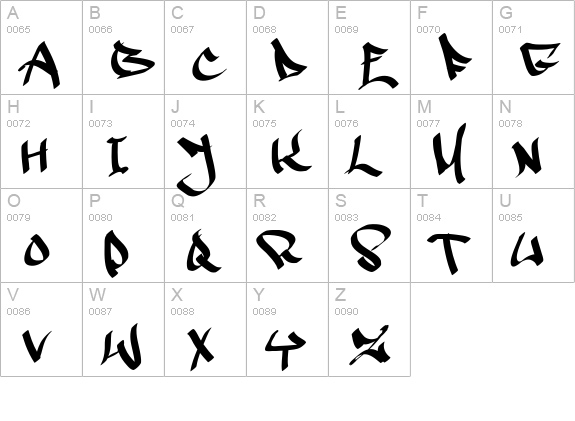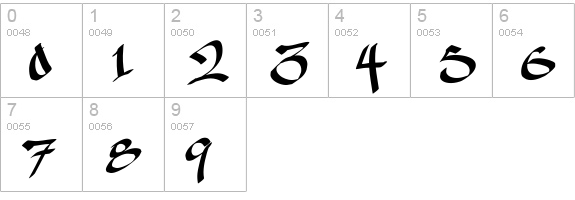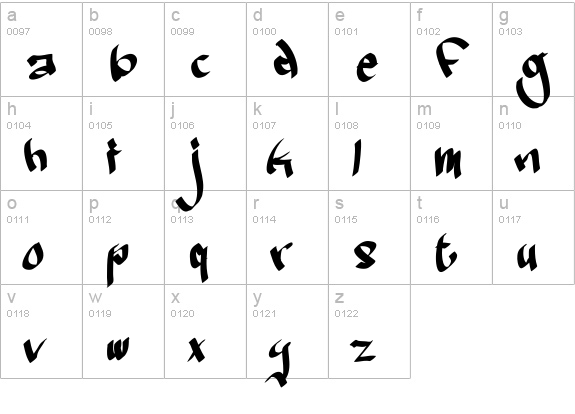
Ruthless Wreckin TWO font is a bold and powerful typeface that exudes a sense of strength and determination. With its sharp edges and aggressive design, this font is perfect for projects that require a strong and impactful visual presence. Whether you're creating a poster, a logo, or a headline, Ruthless Wreckin TWO font will make sure your message is delivered with maximum impact. This font is not only visually striking but also highly versatile. Its bold and commanding appearance makes it suitable for a wide range of applications, from sports and fitness to music and entertainment. Whatever your creative needs may be, Ruthless Wreckin TWO font is sure to catch the eye and leave a lasting impression. One of the best things about Ruthless Wreckin TWO font is that it is freely available to download at FontsMarket.com. This means that you can easily access and use this font without any cost, making it an ideal choice for designers and creatives on a budget. With its high-quality design and effortless legibility, this font gives you the freedom to create stunning visuals without breaking the bank. So why wait? Download Ruthless Wreckin TWO font today and unleash your creativity with this bold and impactful typeface. Whether you're designing a logo, a poster, or a website, this font will elevate your project to new heights. Remember, it's free and ready to be downloaded at FontsMarket.com, so don't miss out on this incredible opportunity to enhance your designs with the power of Ruthless Wreckin TWO font.